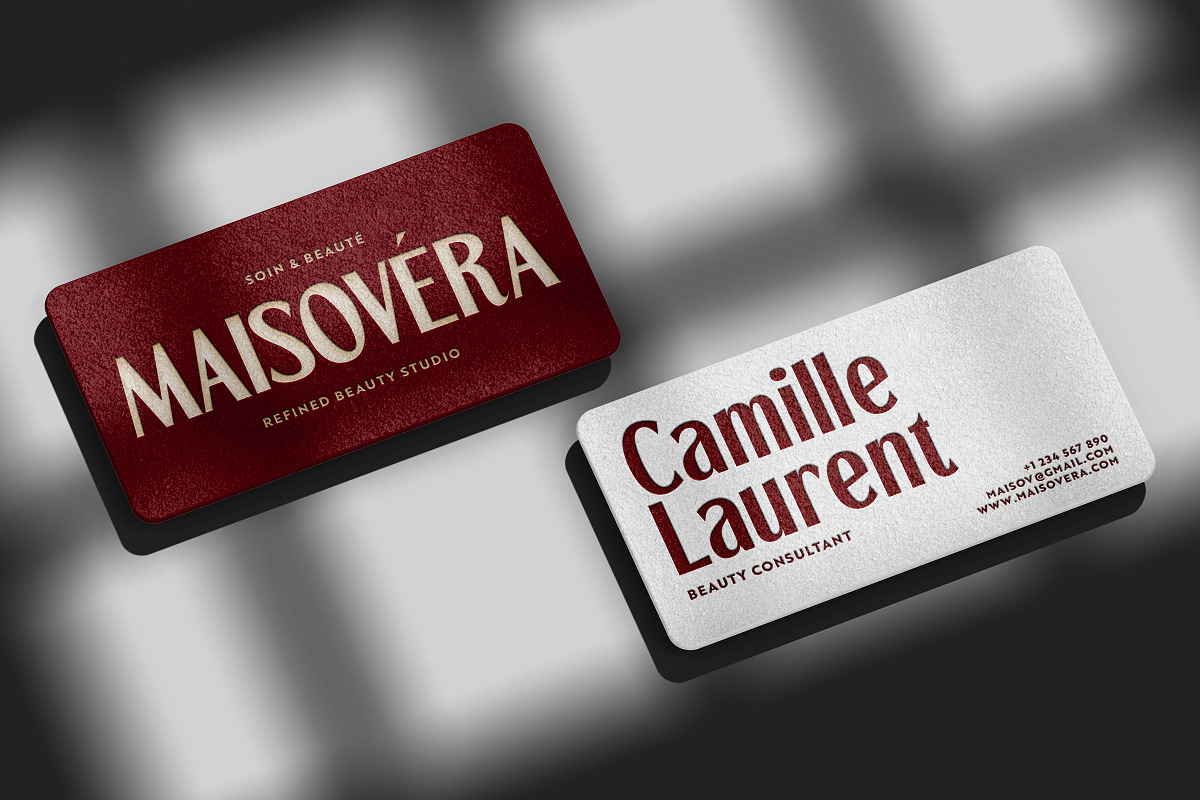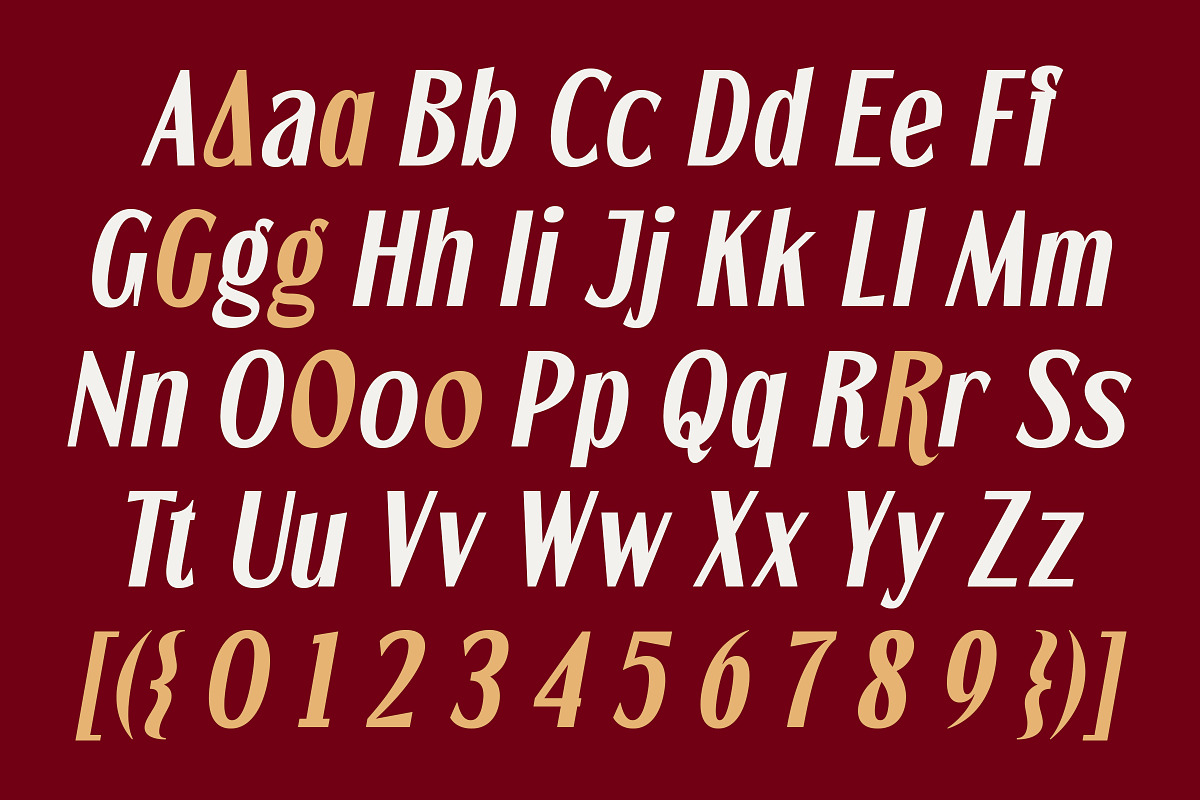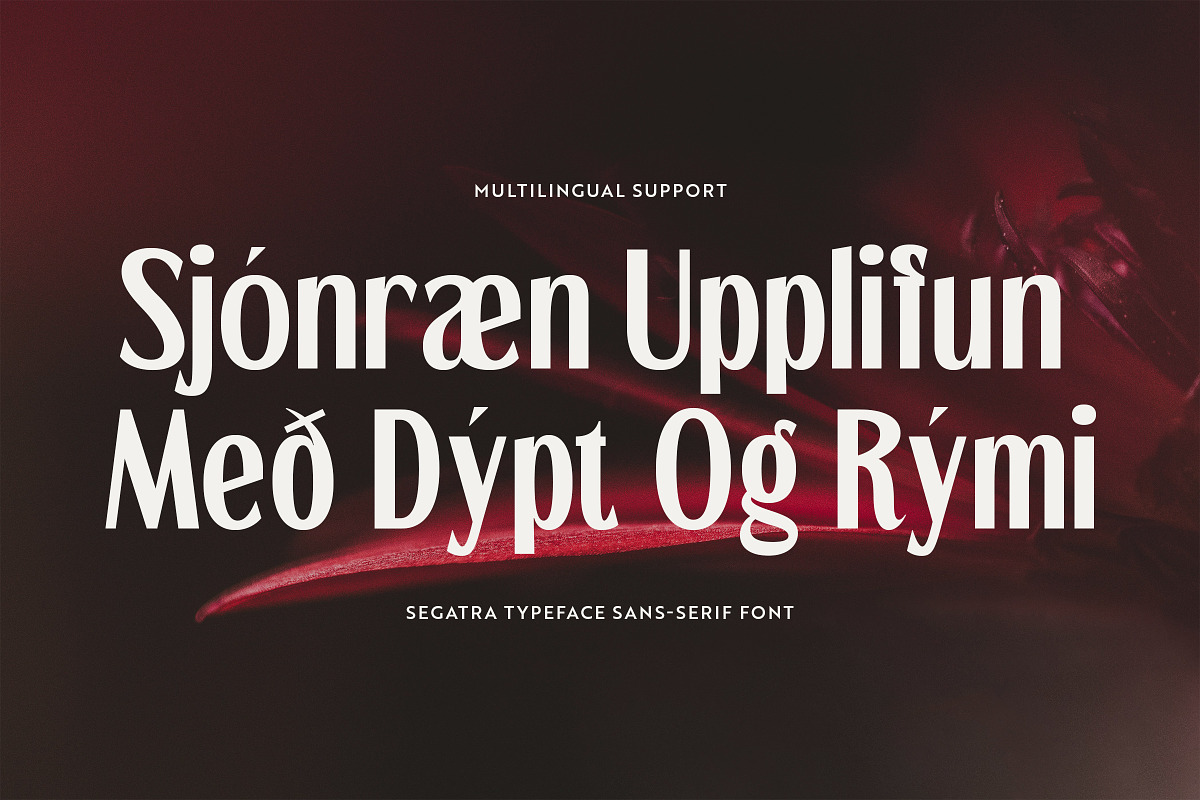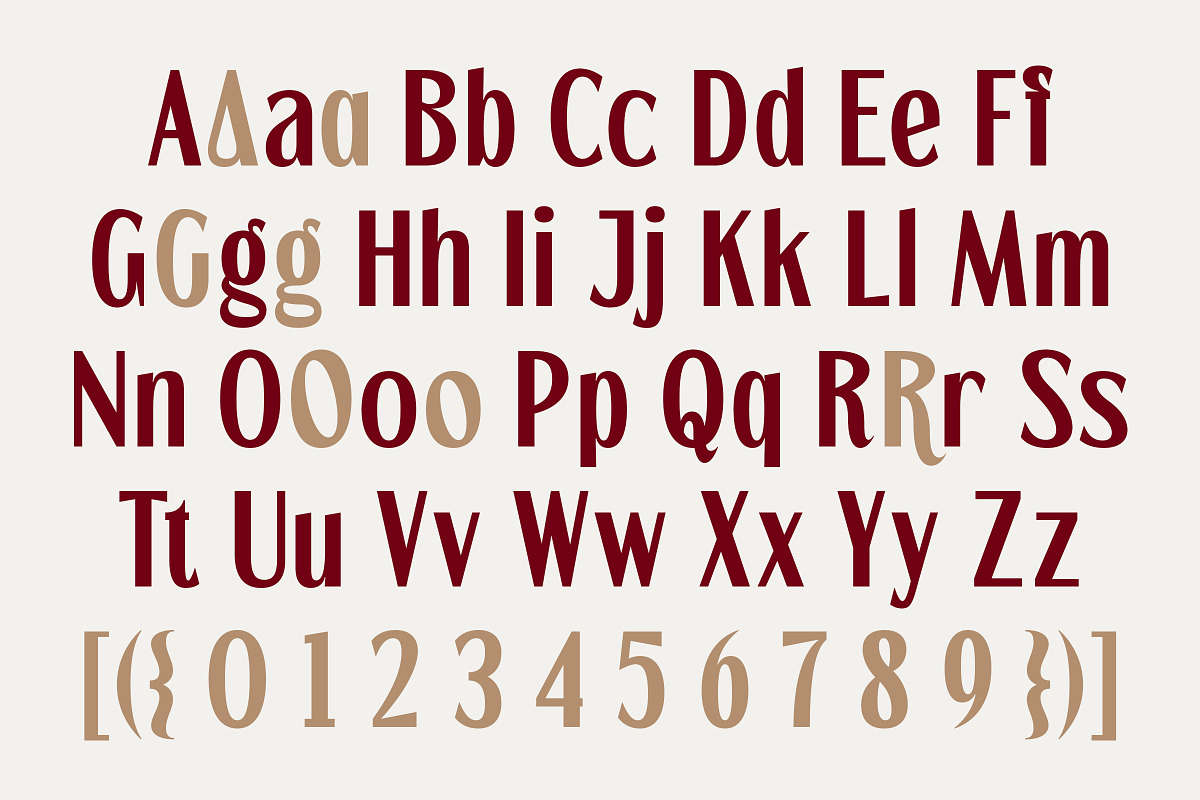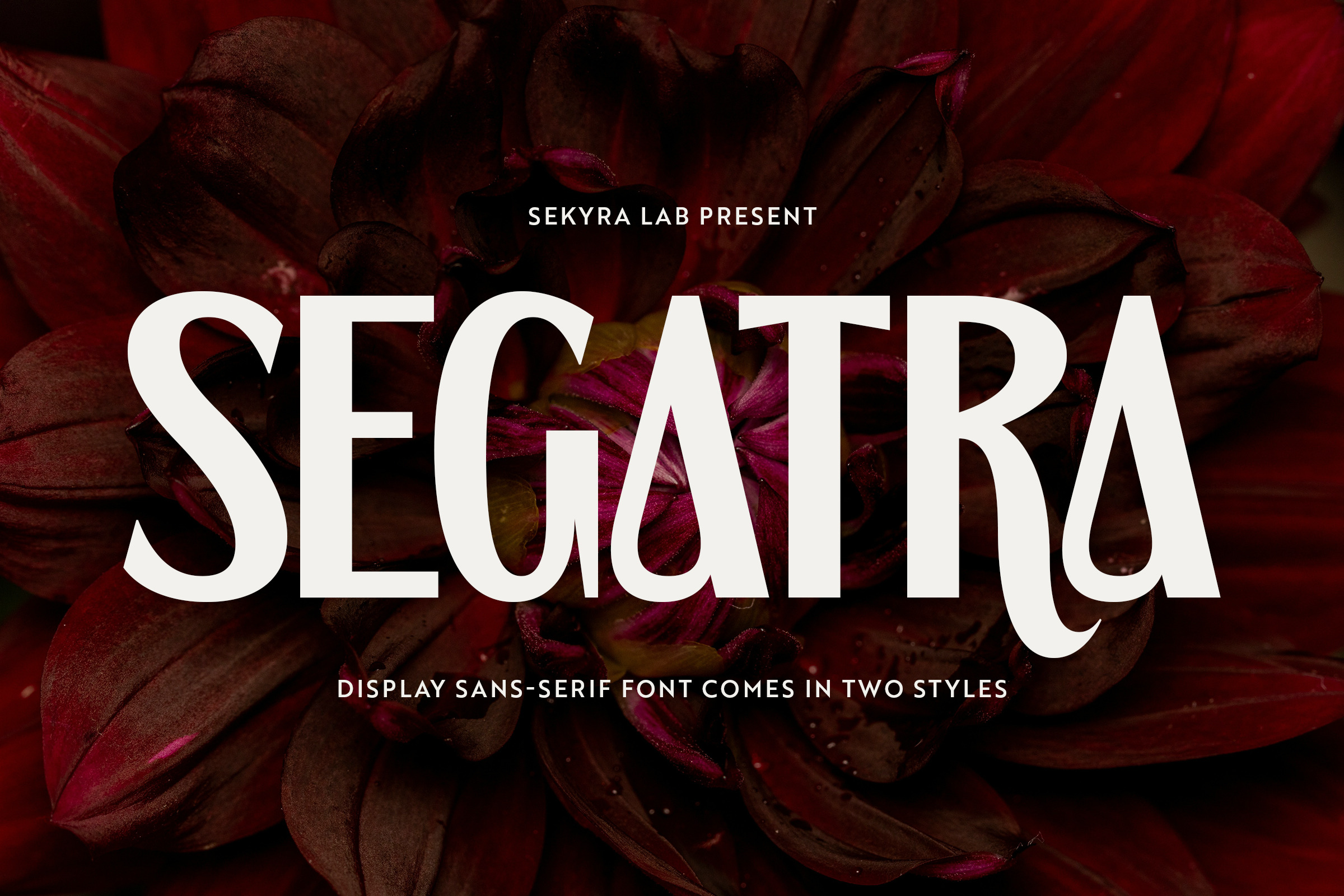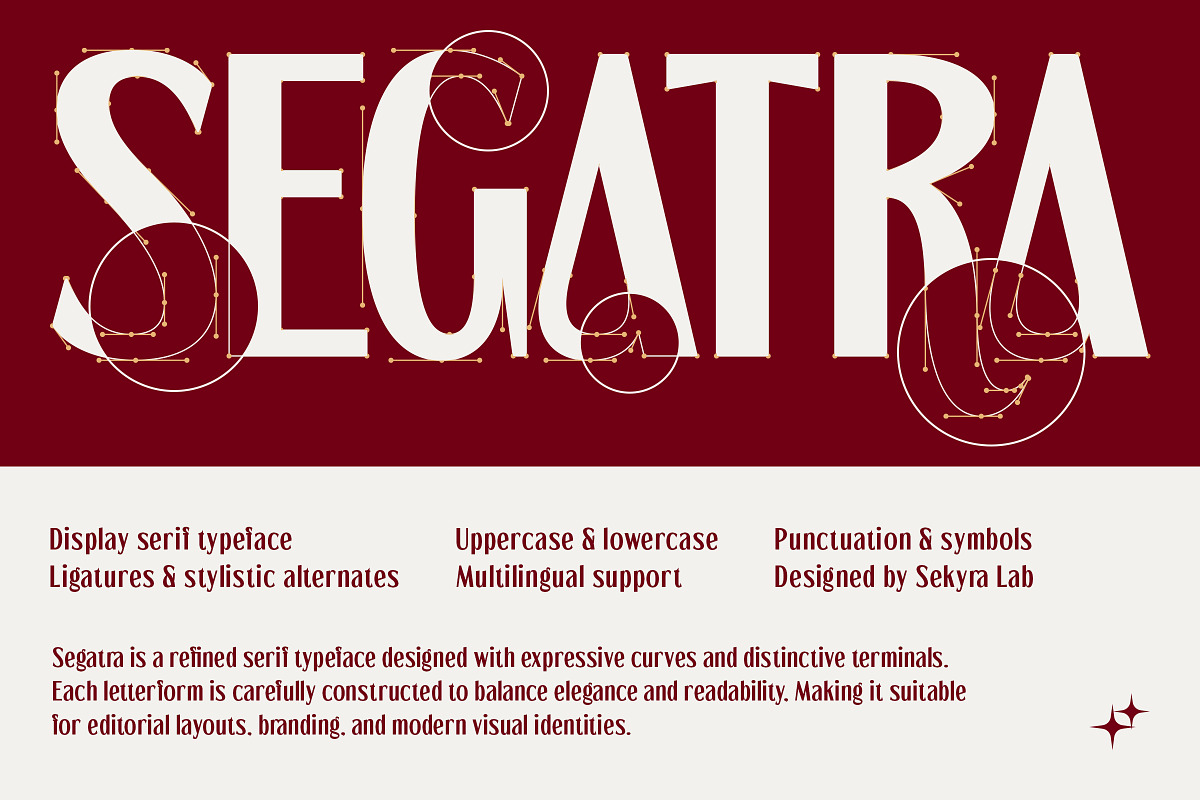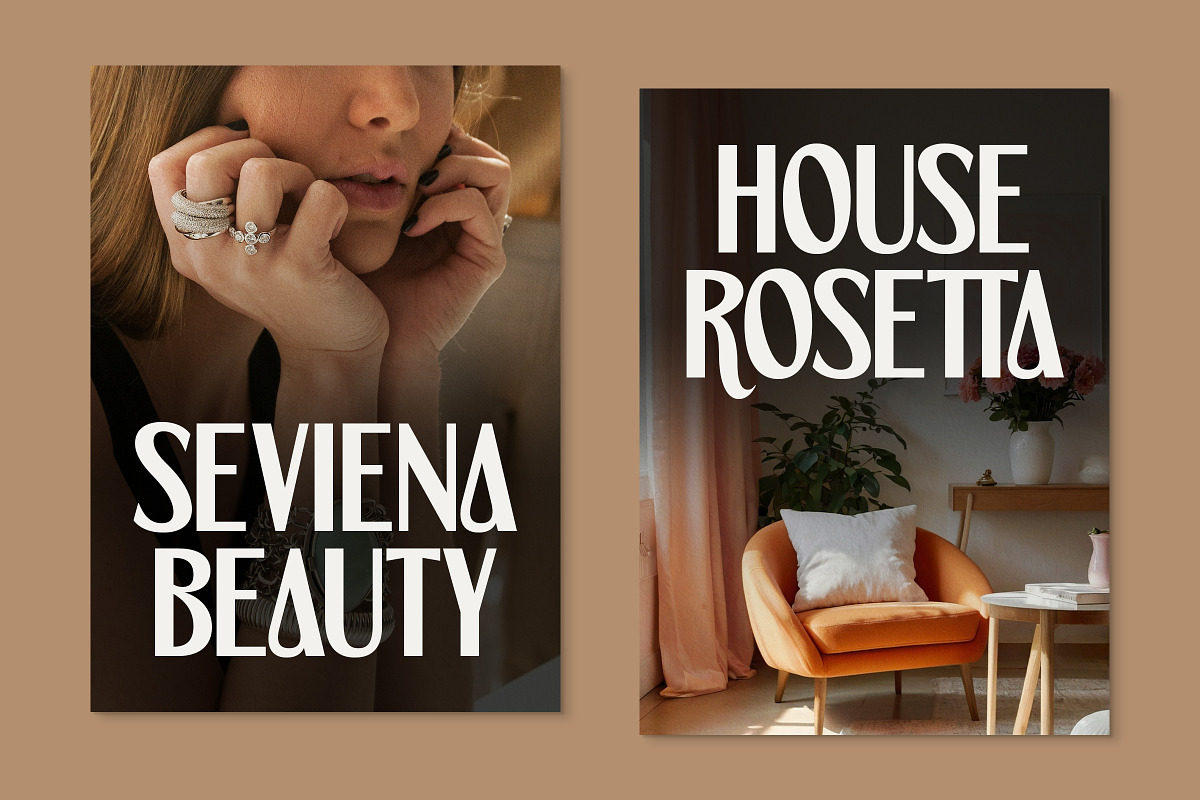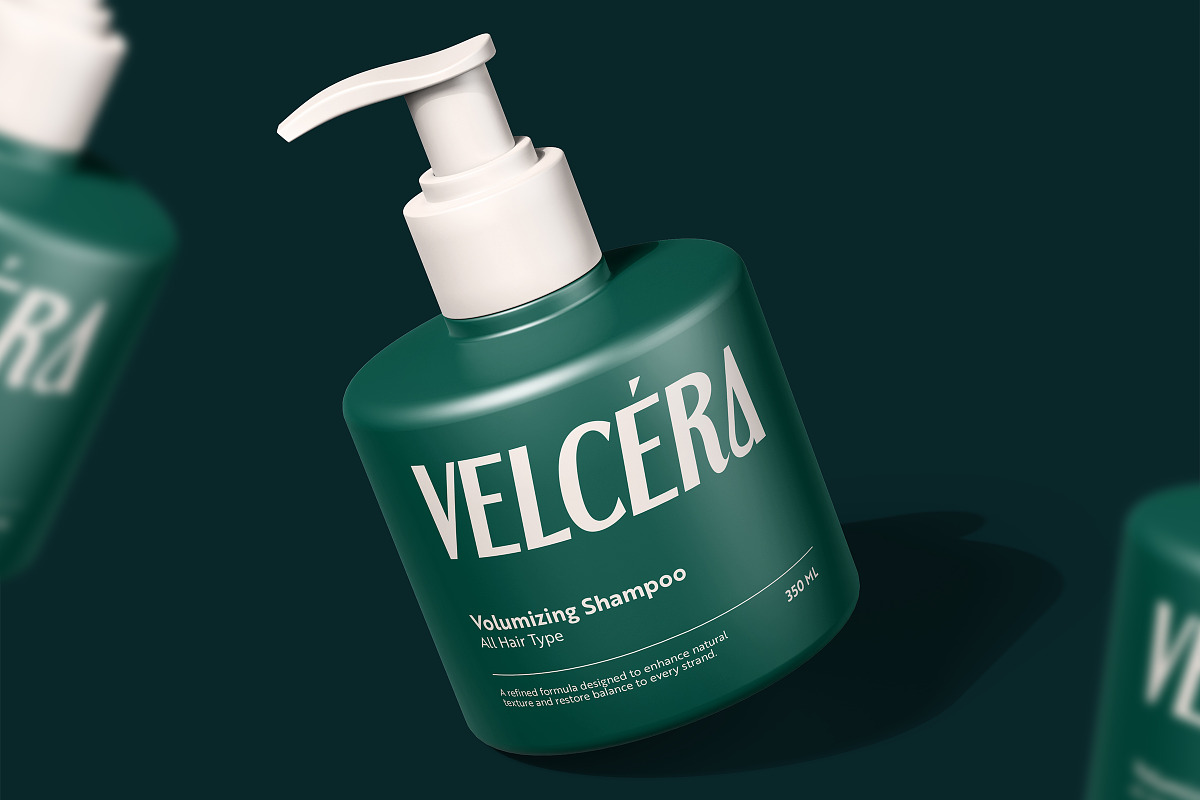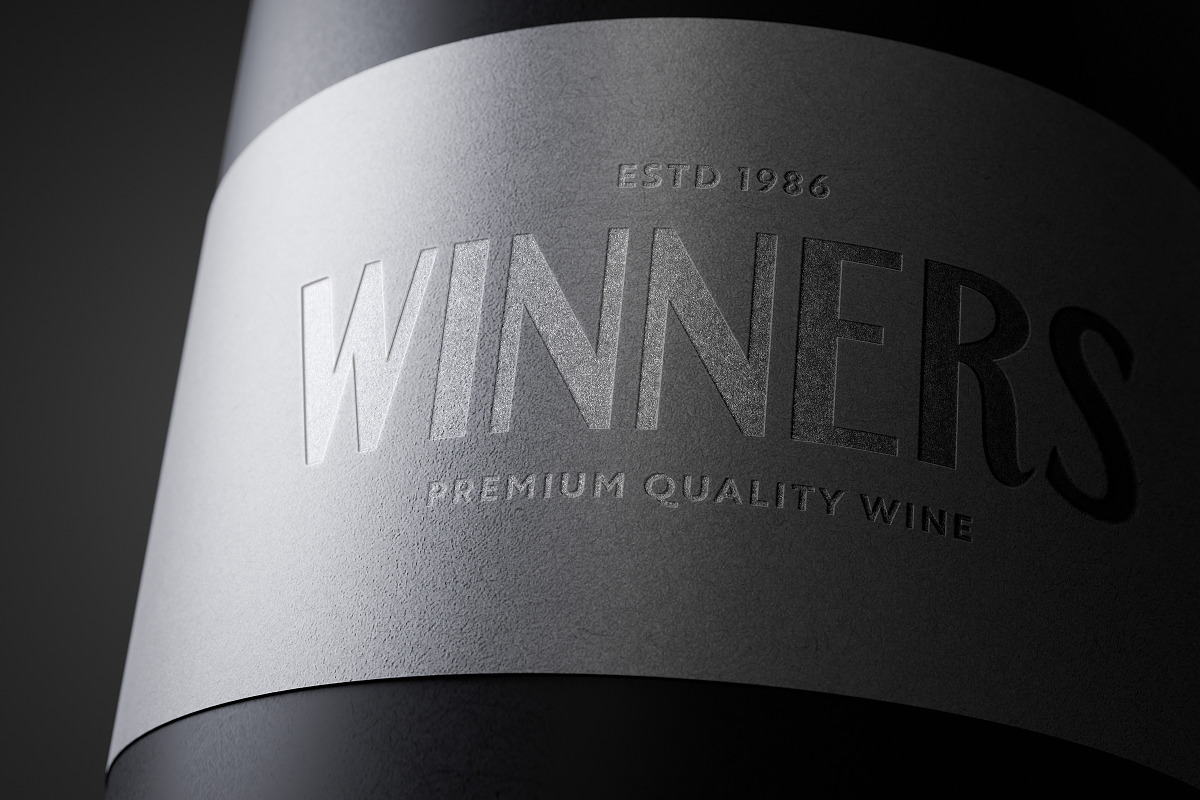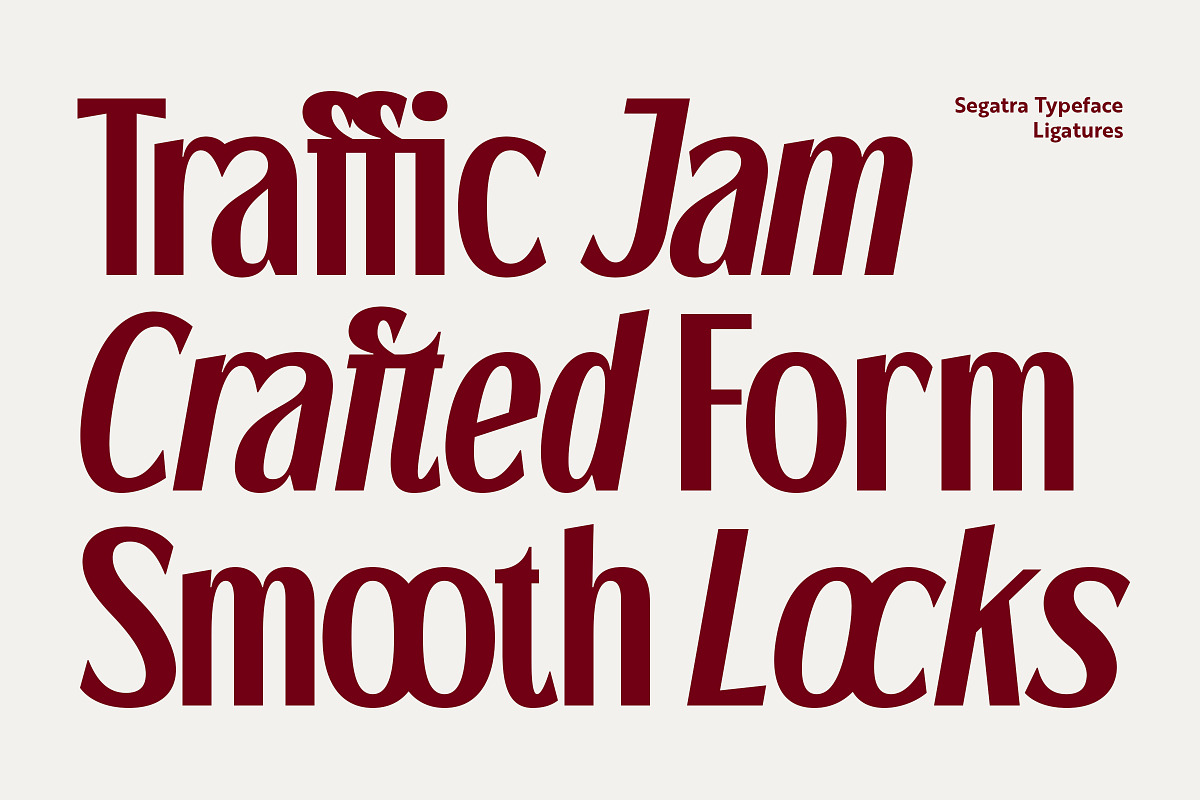
Segatra - Elegant Display Serif Font
Segatra is an elegant display serif font designed to bring sophistication and beauty into your creative projects. With its graceful curves, high contrast strokes, and distinctive letterforms, this font delivers a strong visual impact while remaining versatile for various design needs. Whether you're working on branding, posters, or digital content, it helps your work stand out effortlessly.
This font is perfect for designers looking to create luxury, feminine, and editorial-style visuals. Its unique style makes it suitable for both modern and classic-inspired designs, giving you flexibility across multiple creative directions. From bold headlines to eye-catching layouts, it ensures your typography grabs attention.